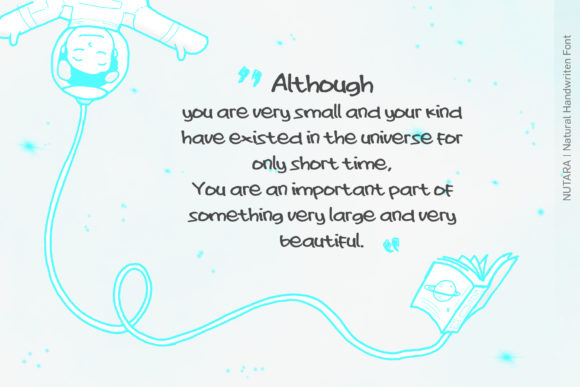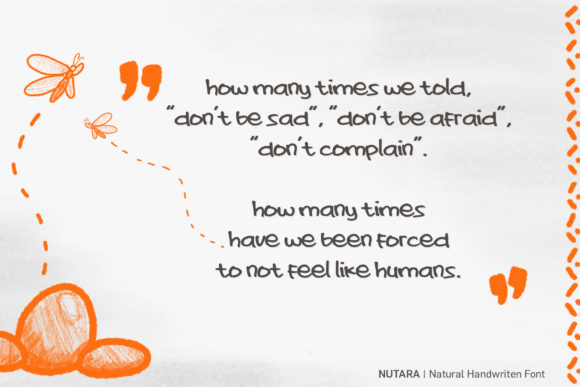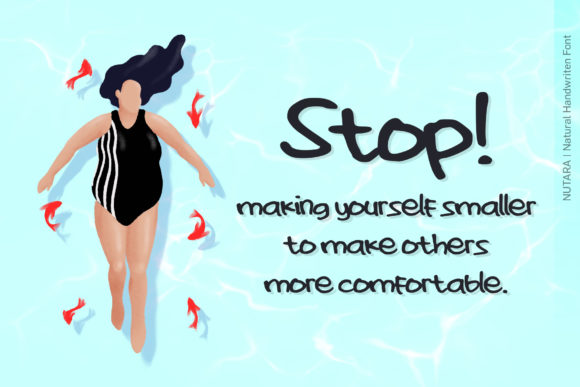
Discovering the Perfect Font for Your Creative Project
Have you ever stared at a blank canvas, struggling to find the right font to bring your creative project to life? We’ve all been there, and it’s frustrating. But what if I told you that there’s a font that can make your design stand out, and it’s free to download?
That’s where the Nutara Font comes in – a sweet and cool handwritten font that’s perfect for adding a casual touch to your design. With its unique style, you’ll be able to add a personal touch to your creative project, making it truly special.
Key Features of Nutara Font
- Unique, hand-drawn style with a modern twist, perfect for adding a touch of elegance to designs
Honest Review: Nutara Font
I recently had the chance to work with the Nutara Font, and I must say it’s been a great addition to my design resource library. The font is available for a free download, which is always a plus for me.
What works well with the Nutara Font is its versatility. I’ve used it for various creative projects, from branding to editorial designs, and it’s consistently delivered high-quality results. The font’s modern and elegant design makes it perfect for a wide range of applications. I’ve also appreciated the transparent background, which allows me to easily integrate it with other design elements.
What I Like About Nutara Font:
- High quality and modern design
- Perfect for branding, editorial, and creative projects
What Could Be Improved:
- ⚠️ Limited font sizes and styles available
- ⚠️ Some users may find the font too modern or edgy
Overall, I’m very impressed with the Nutara Font. It’s a valuable addition to any designer’s library, and I’m happy to recommend it to my colleagues. With its high quality and versatility, it’s a great resource for any creative project.
Nutara Font
The Nutara Font is a high-quality design resource perfect for any creative project. With its elegant and modern style, this font is ideal for various applications, from branding and marketing materials to digital products and print media.
Using Nutara Font in Creative Projects
The Nutara Font can be used in a variety of creative projects, including:
- Branding and marketing materials, such as logos and business cards
- Digital products, such as e-books and infographics
- Print media, such as posters and flyers
Tips for Getting the Most Out of Nutara Font
To get the most out of the Nutara Font, consider the following tips:
- Use the font on a transparent background to create a modern and sleek design
- Pair the font with high-quality images to add visual interest to your design
- Experiment with different font sizes and colors to create a unique and engaging design
The Nutara Font is commonly used in a variety of industries, including:
- Digital marketing
- Print media